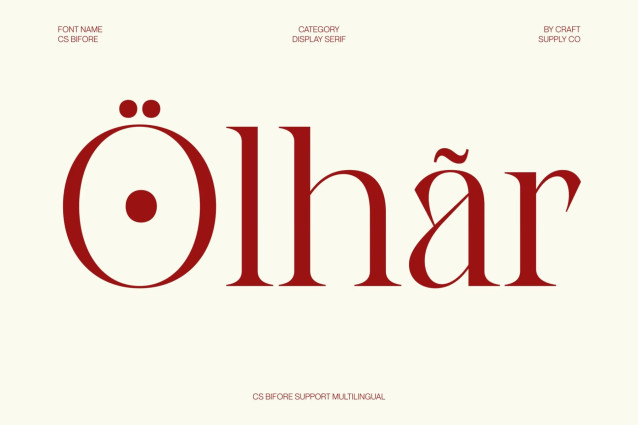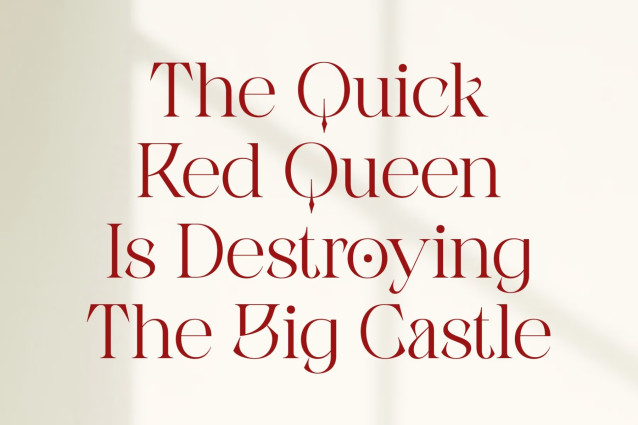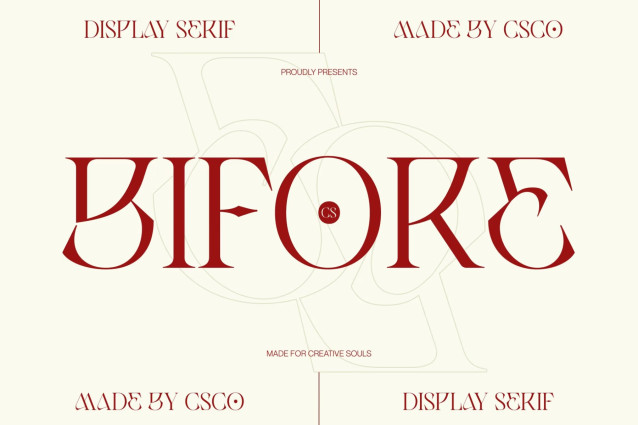
CS Bifore – Classic Serif Font
CS Bifore – Classic Serif with Distinctive Heritage
Classic Serif with Timeless Character
This is a serif font that blends classic heritage with a contemporary spirit. Inspired by traditional typography, this typeface carries a sense of history while maintaining a modern and refined appearance. Its distinctive structure makes it ideal for designs that aim to feel elegant, cultured, and visually memorable.
Historic Influence with Modern Versatility
The letterforms reflect the charm of classic serif traditions while introducing subtle modern touches that keep the design fresh and relevant. This fusion creates a balanced aesthetic that feels both familiar and innovative, allowing the font to adapt effortlessly across different design styles.
Distinctive Details for Decorative Impact
This font features carefully crafted serifs and expressive proportions that add personality and visual depth. These details create a decorative quality without sacrificing readability, ensuring the typeface remains functional while offering strong visual appeal. The result is typography that feels rich, artistic, and engaging.